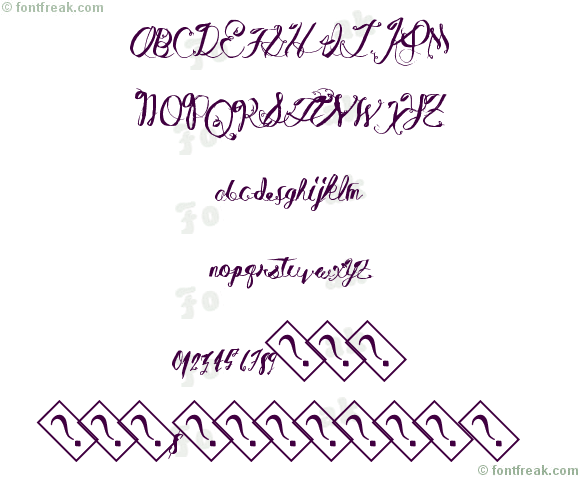
WineBasement
WineBasement is a captivating script font designed by Xerographer Fonts, released in 2012. This font stands out with its elegant, flowing strokes that give it a handwritten feel, making it an excellent choice for various creative projects. The WineBasement font exhibits a moderate stroke weight, providing a balanced contrast that enhances readability while maintaining an artistic flair. The spacing is thoughtfully designed to ensure clarity, allowing each letter to blend seamlessly with its neighbors, creating a harmonious flow.
This versatile font is particularly suited for use in wedding invitations, where its graceful curves can evoke romance and elegance. Additionally, it can bring a touch of sophistication to restaurant menus, enticing diners with its stylish presentation. Movie posters can also benefit from the unique character of WineBasement, adding a distinctive element that captures attention and conveys a sense of creativity. Graphic designers will find this font useful for branding projects, as it can effectively communicate personality and style. Small business owners looking to create eye-catching promotional materials will also appreciate the charm of this font.
Targeting graphic designers, small business owners, and content creators, WineBasement offers a perfect blend of aesthetics and functionality. Its design resonates with those who appreciate a personal touch in their typography, making it a favored choice for artistic endeavors.
What truly sets the WineBasement font apart is its ability to evoke emotion through its design. The fluidity of the letters, combined with their artistic nuances, creates an inviting atmosphere that captivates audiences. The WineBasement font free download allows users to incorporate this unique typeface into their projects without any cost, making it an accessible choice for anyone looking to elevate their design work.